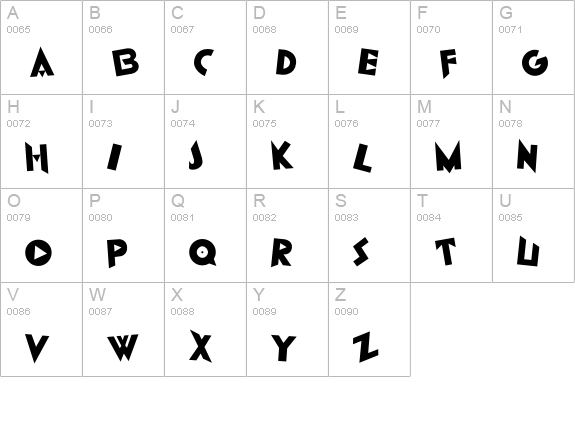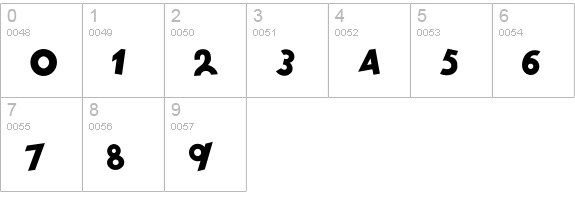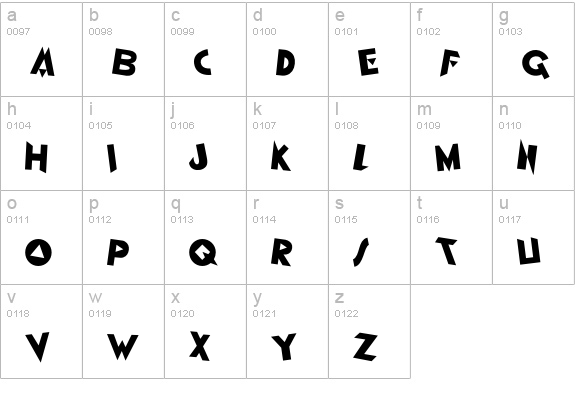
IlFuturismo-Velocita Font Details
IlFuturismo-Velocita is a captivating and dynamic font that embodies the spirit of futurism and speed. Its sleek and streamlined design is reminiscent of a fast-moving vehicle, evoking a sense of velocity and energy. The letters are artistically crafted with sharp angles and bold strokes, creating a visual representation of movement and progress. This font is perfect for projects that require a modern and futuristic touch, such as logos, headlines, posters, and advertisements. Its unique style will make your designs stand out and grab attention, adding a sense of excitement and innovation to any visual composition. What makes IlFuturismo-Velocita even more appealing is the fact that it is freely available to download at FontsMarket.com. This means that you can access this exceptional font without any cost, making it an excellent choice for both personal and commercial projects. With IlFuturismo-Velocita, you have the freedom to unleash your creativity and explore the limitless possibilities of futuristic typography. Don't miss out on this opportunity to enhance your designs with the captivating power of IlFuturismo-Velocita. Download it now from FontsMarket.com and experience the thrill of speed and innovation in your typography.